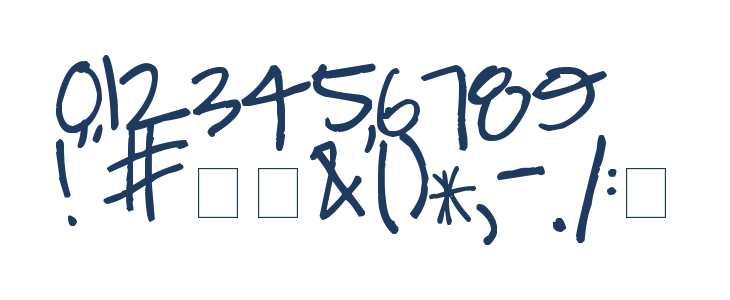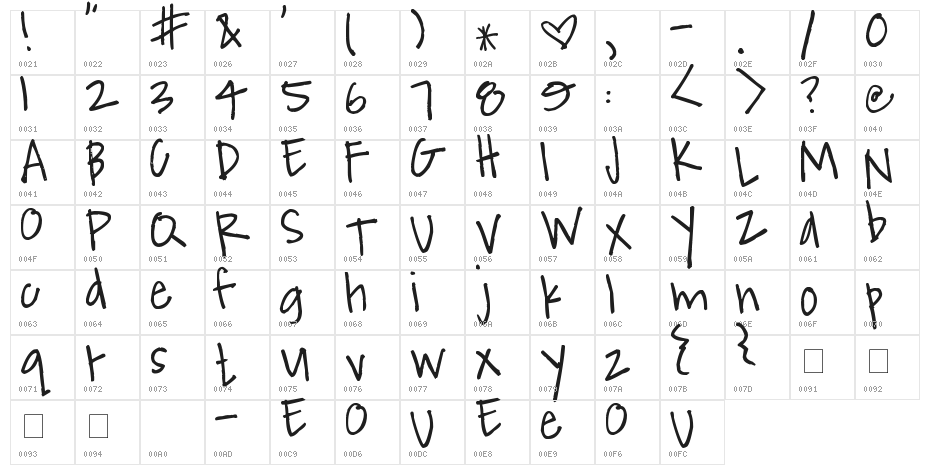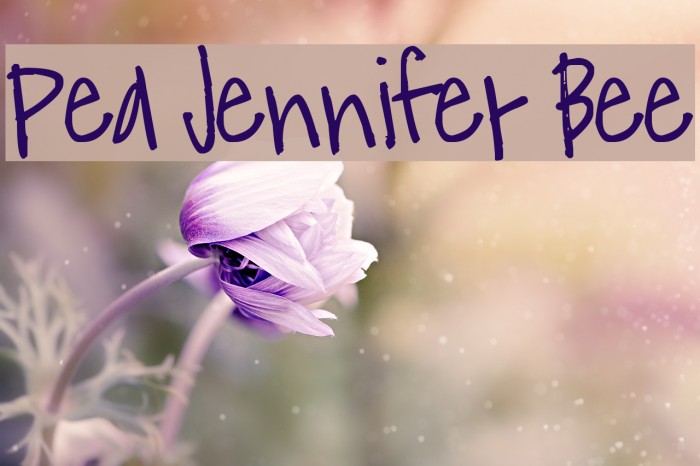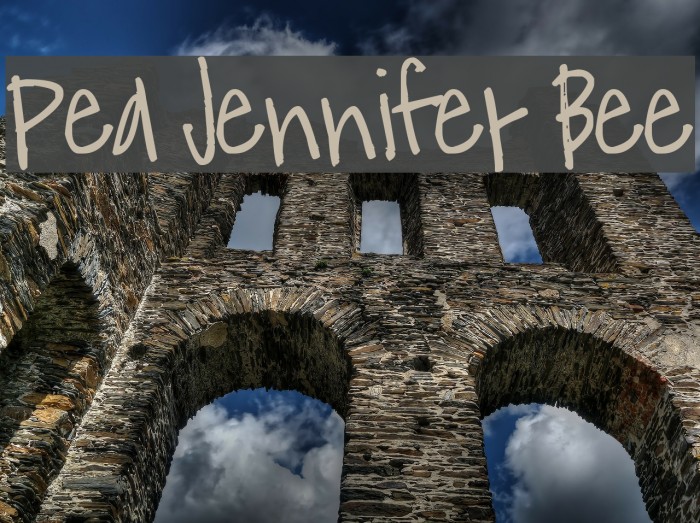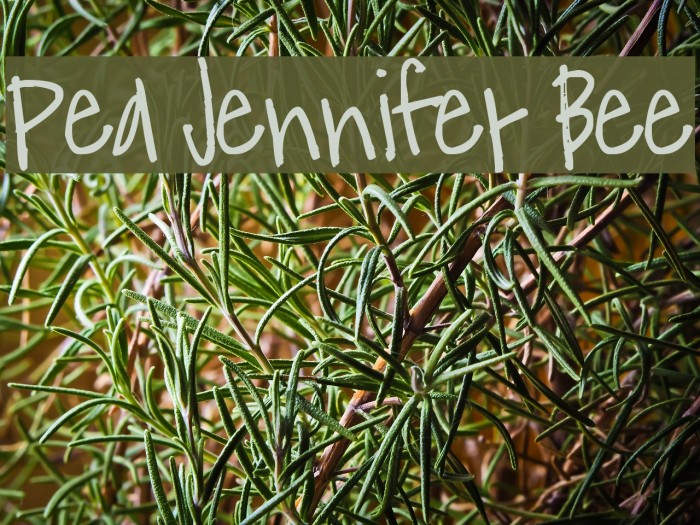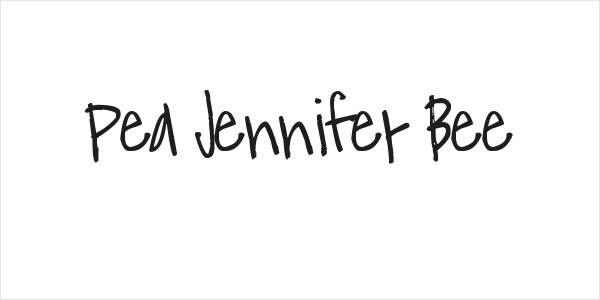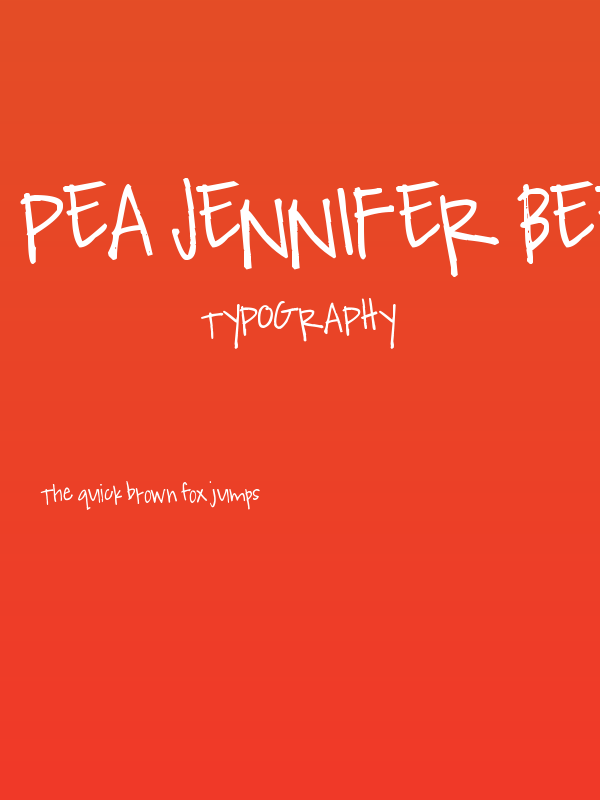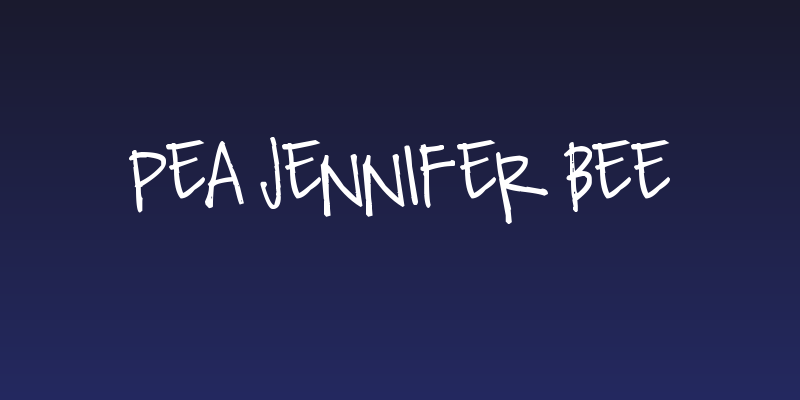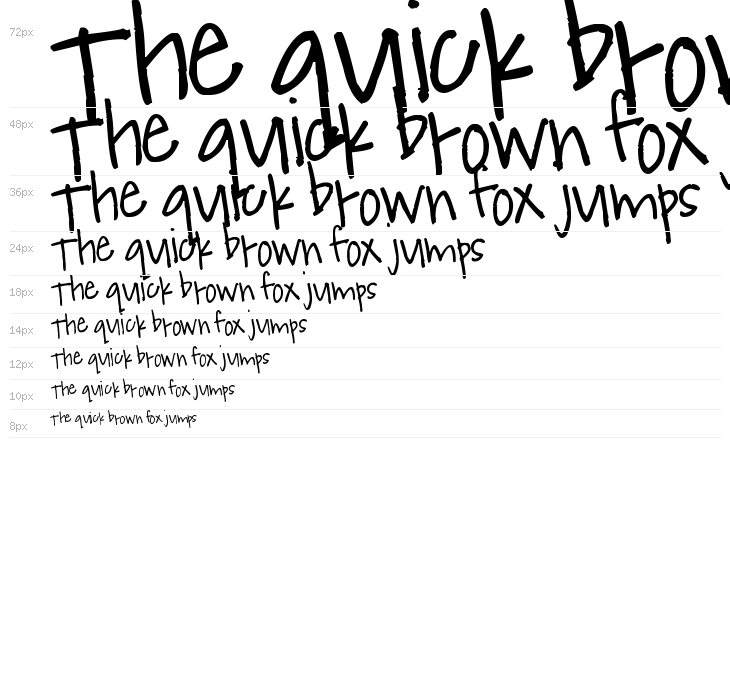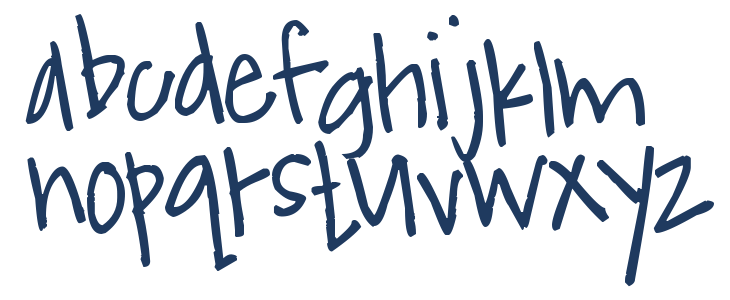
Pea Jennifer Bee Font
Pea Jennifer Bee Description
This font features a playful and casual handwritten style, characterized by its uneven lines and slightly tilted letters. The strokes are bold and expressive, giving it a lively and informal appearance. The uppercase and lowercase letters maintain a consistent style, with rounded edges and a natural flow that mimics authentic handwriting. Numbers and special characters are crafted with the same energetic flair, making them easily recognizable and visually appealing. The overall design is approachable and friendly, suitable for projects that require a personal touch.
Overall StyleCasual, Playful
Use CaseLogos, Headlines, Informal Text
Proposed ProjectsIdeal for greeting cards, personal blogs, children's books, and informal branding projects.